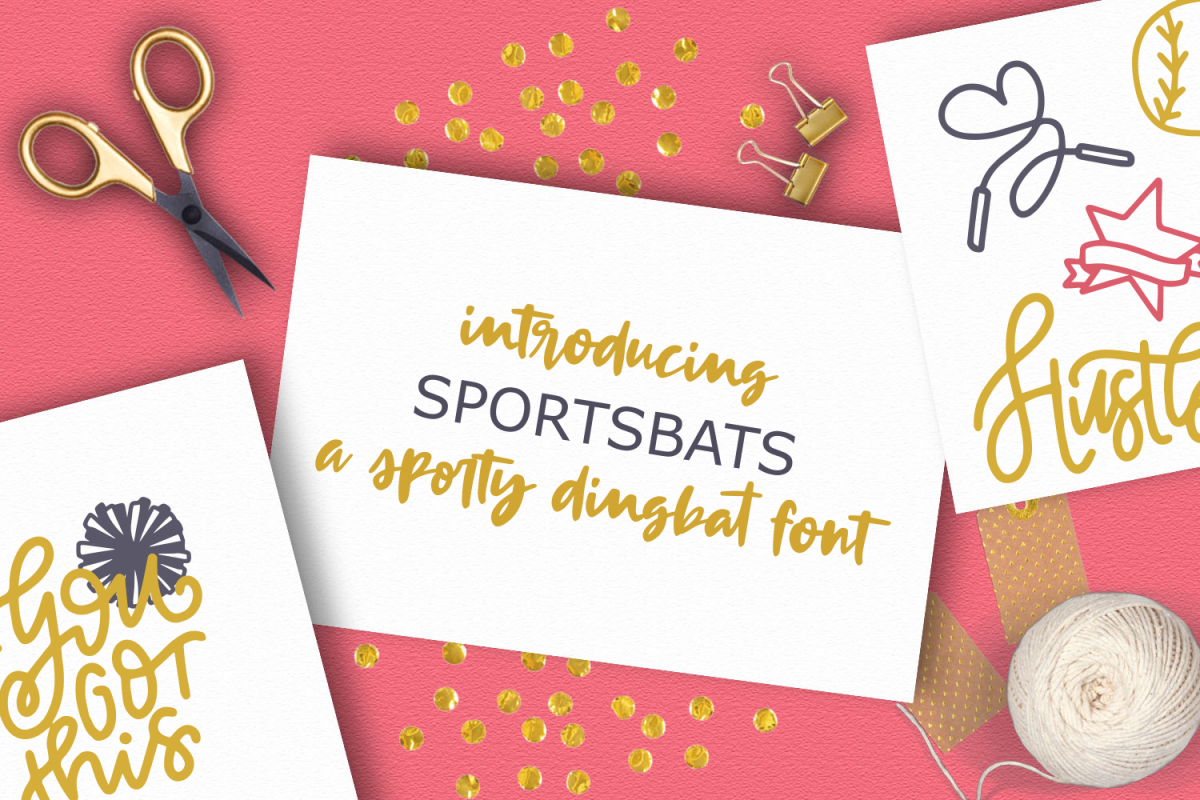
SPORTSBATS - Sporty Dingbats & Catchwords
"SPORTSBATS" is a dingbat selection of 69 hand drawn or lettered icons. Perfect for designers to embellish their items. :)